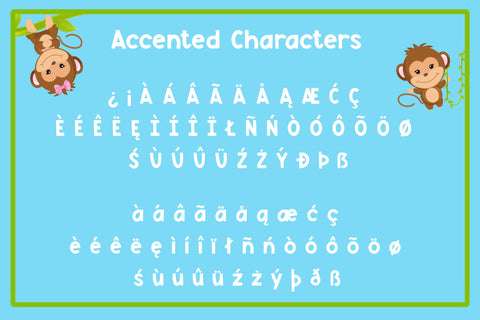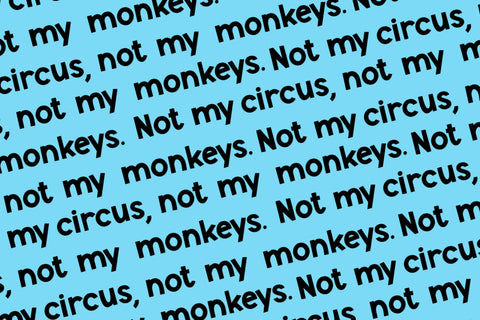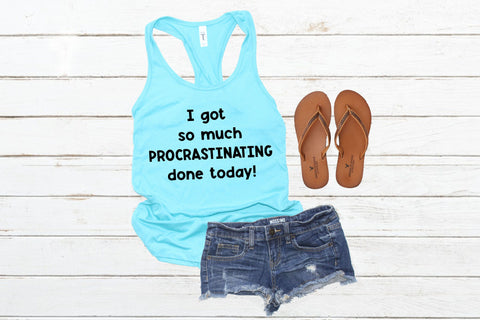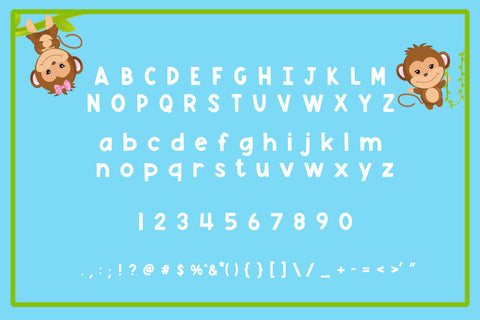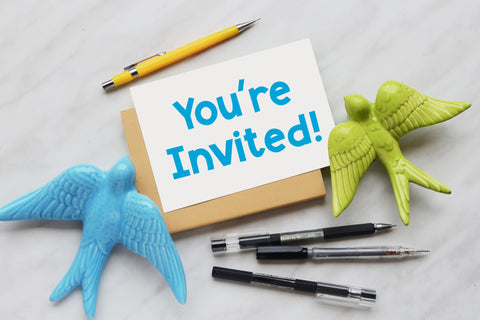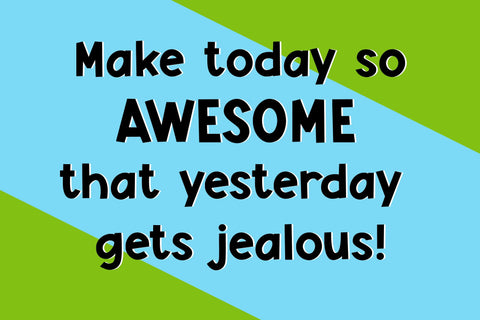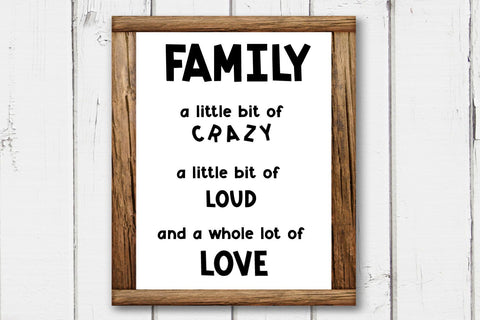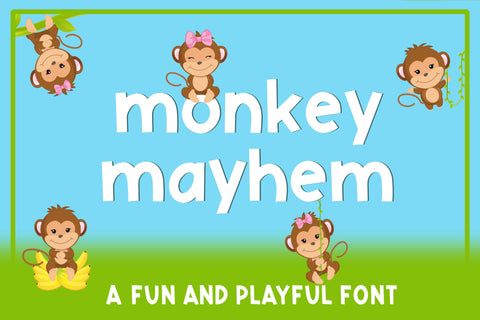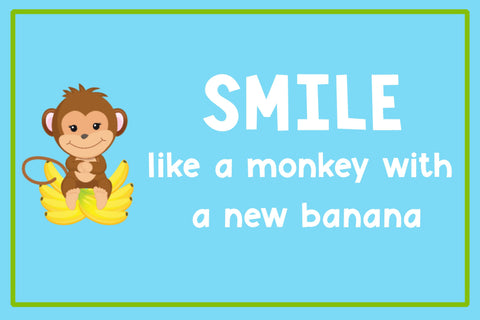
Monkey Mayhem - A fun and playful font
Monkey Mayhem is a fun and chunky handwritten font made up of capital letters A-Z, lowercase letters a-z, numbers 0-9, accented characters and punctuation. Created with vinyl cutting machines in mind, Monkey Mayhem will give you a smooth clean cut. Great for Cricut and Silhouette projects, SVG design, cards, invitations, scrapbooking, and much more!
Monkey Mayhem is great on its own but also pairs well with Ripple Effects which was created from Monkey Mayhem's capital letters.